No.81 Custom Typeface for Brand | 品牌定製字體
In recent years, many famous brands and internet companies have gradually updated their brand fonts or launched customized fonts. In today’s competitive market environment, brand recognition is critical for every brand, and each design needs to help the brand to stand out in the market. As the most commonly contacted visual element by users, the font carries more functions of brand value communication. Just like languages, fonts will subtly and powerfully influence people’s thinking and deepen their impression of the brand in the process of being widely used. The process is like the misty rain, which is silent but effective. This issue of “Customer Typeface for Brand” will explore how designers can meet the brands’ delicate pursuit of brand recognition and design in this “customization era” by creating the type’s strokes. The highlight of this issue is a bilateral interpretation of the phenomenon: ideas were gathered from the brands as well as from agencies and type designers.
近年來,各大品牌及互聯網公司紛紛更新品牌字體或推出定製字體,讓品牌定製字體這一話題再次引起熱議。在當今競爭激烈的市場環境中,品牌辨識度對於各品牌而言至關重要,各個設計資產都需要讓品牌在市場中更加脫穎而出。字體作為用戶最常接觸的視覺元素,承載了更多的品牌價值傳播的功能,如語言一樣,在被廣泛使用的過程中,自然而然又強而有力地影響人們思維及加深大眾對品牌的印象,潤物而無聲。本期“品牌定製字體”即是探索設計師如何在一勾一畫中滿足企業在這個“定製時代”裡對品牌識別、對設計的細膩追求。本期主題最大的特點在於雙向的解讀:既有品牌方的角度,也有品牌策略公司和字體設計師的角度。
book i Lab 實驗場
This issue of “Lab” is our first attempt to use four different covers; by combining the Latin initial “a” with the four tones of Chinese Pinyin, editors hope to imitate different pronouncing sound and echo with the emphasis on Chinese type design for brands in this issue.
本期“實驗場”首次啟用四式封面,將拉丁文首字母“a”和中文拼音的四聲調結合,仿佛能夠傳達語氣,也蘊含了本期雜誌對中文品牌字體設計的關注。
book ii Trail 行跡 | Design in Buenos Aires 布宜諾斯艾利斯設計行
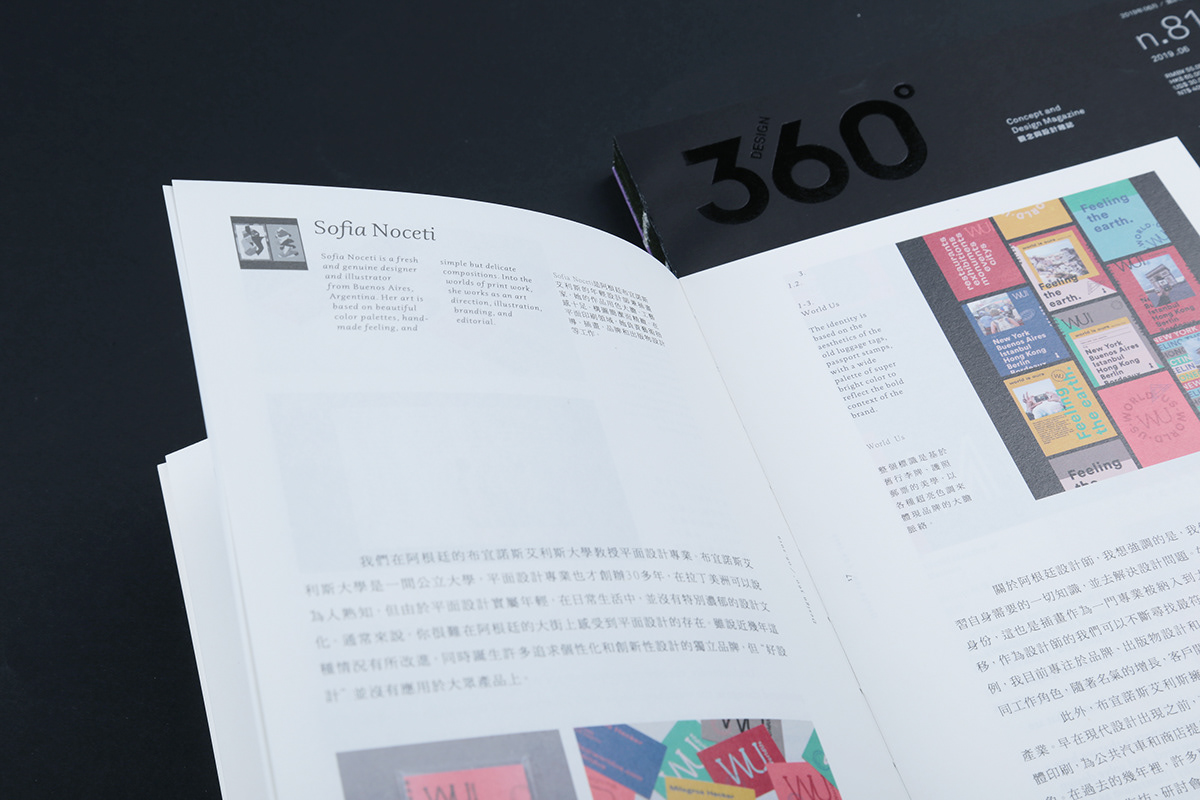
book iii Force 原力 | Custom Typeface for Brand
Type is Brand 字體即品牌
- 騰訊(Tencent) — 郭特宏(Elvis Guo)× 余濤(Tao Yu)
- 阿里巴巴(Alibaba) — 林江輝(Lin Chiang-Hui)× 朱志偉(Zhu Zhiwei)× 陶一泓(Tao Yihong)
- 愛彼迎(Airbnb) — Airbnb × Dalton Maag
- 愛茉莉太平洋(Amorepacific) — 安尚秀(Ahn Sang-soo)× 王子源(Wang Ziyuan)
- 奧美(Ogilvy) — COLLINS × MCKL
Era of Customization 定製時代
- Production Type — LVMH & LV Magazine
- Pentagram — OPPO
- Saffron Brand Consultants — YouTube
- Dinamo — Tumblr
- 方正字庫(FounderType) — vivo
- 資生堂(Shiseido) — Shiseido
- Fontsmith — SAUDIA
270° Exchange 交流
MINDPARK 2019
HKDA Global Design Awards 2018 香港設計師協會環球設計大獎2018